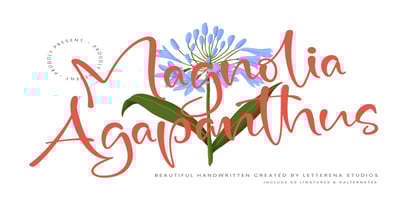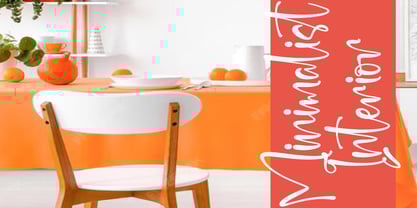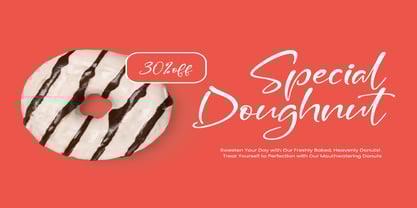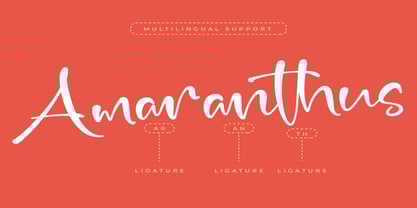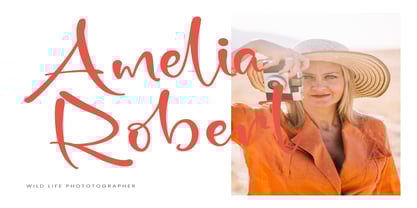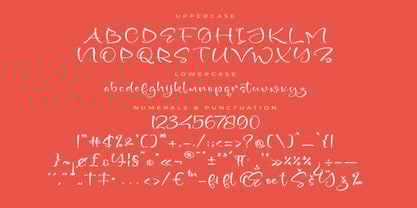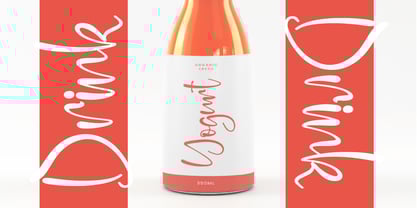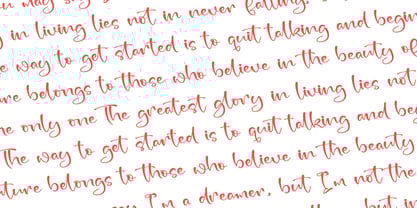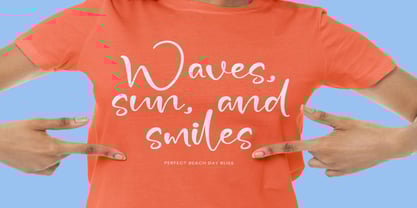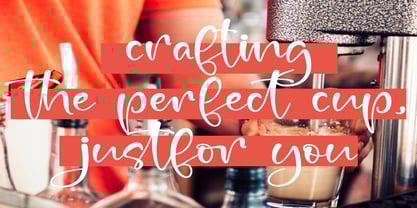
Magnolia Agapanthus
by Letterena Studios
The Magnolia Agapanthus Font Family was designed by Heru Utama Putra and published by Letterena Studios. Magnolia Agapanthus contains 2 styles and family package options. More about this family
Magnolia Agapanthus – Beautiful Handwritten , from Letterena, is a Luxury Script font, suitable for any projects such as: logos, branding projects, homeware designs, product packaging, mugs, quotes, posters, shopping bags, t-shirts, book covers, name card, invitation cards, greeting cards, label, photography, watermark, special events, and all your other luxury and beautiful projects that need a Luxury Script taste.